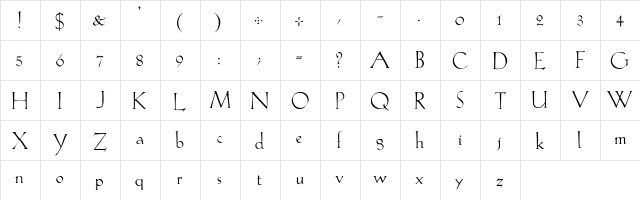
Spaden Regular
Design Context for Spaden Typeface
Spaden is a composed and adaptable typeface that performs quietly and consistently across a wide range of design contexts.